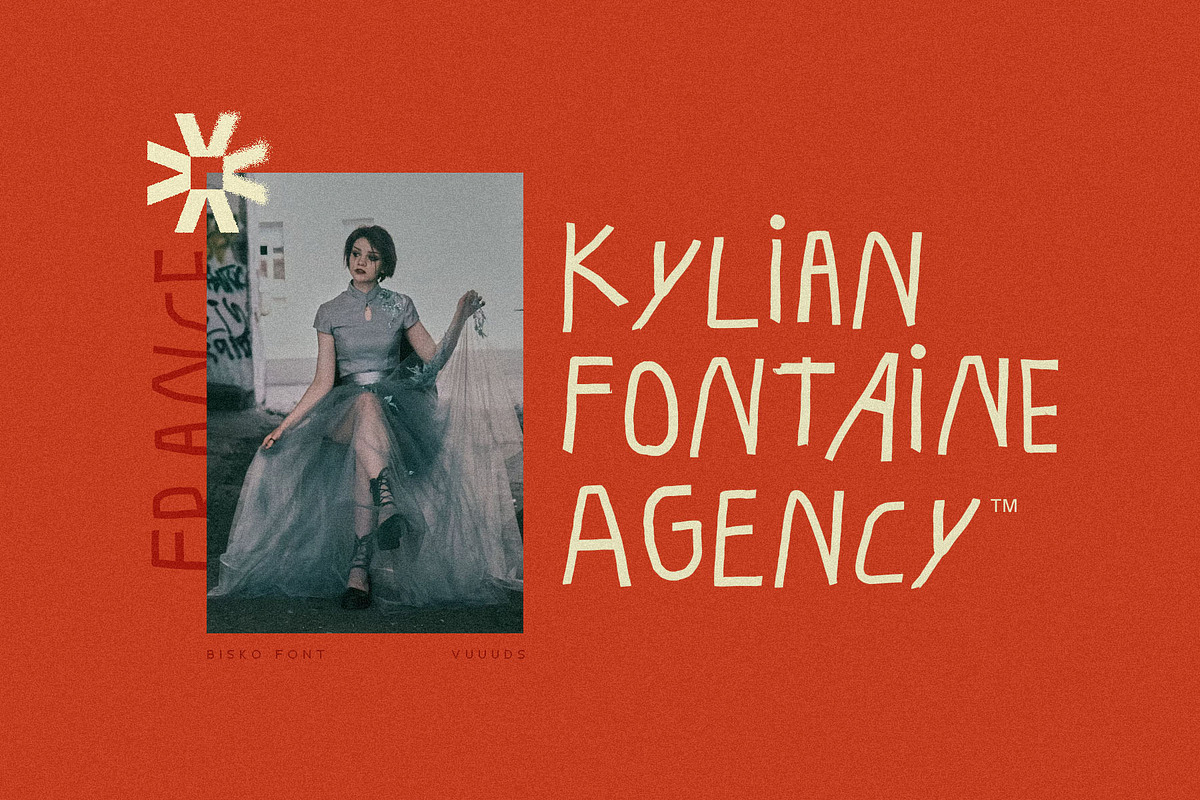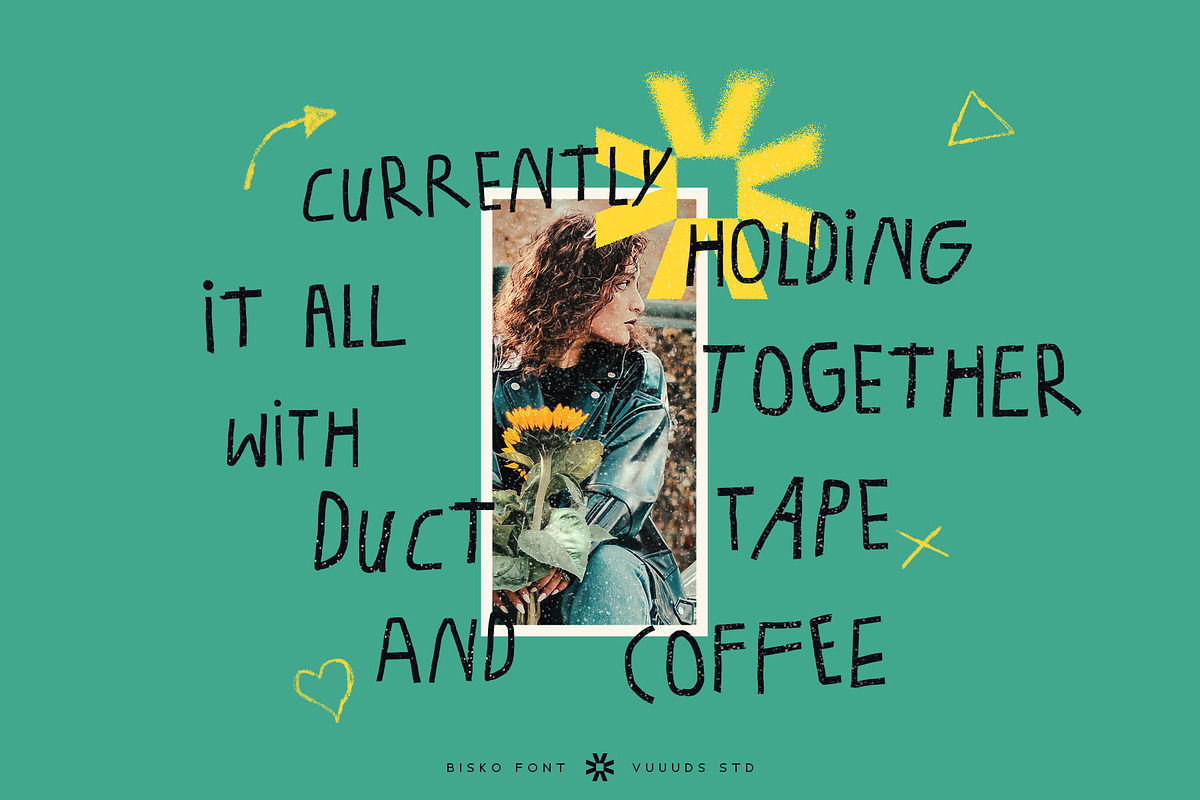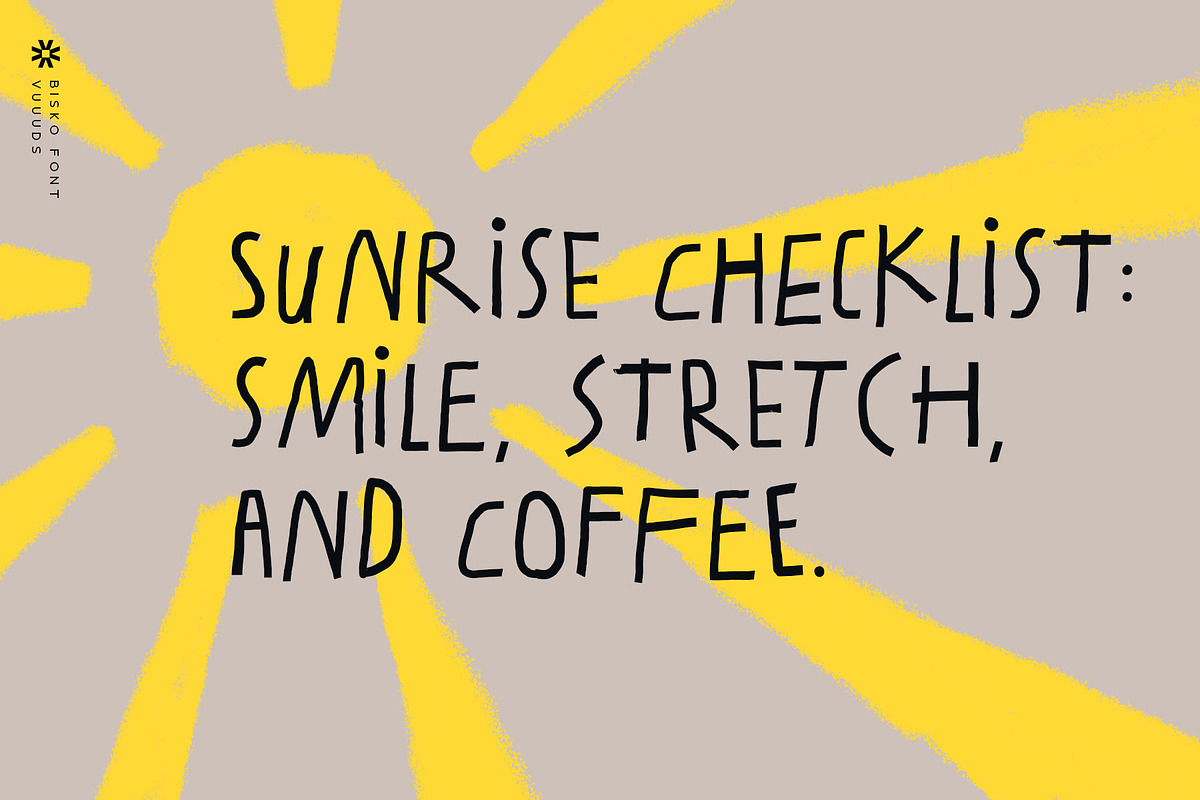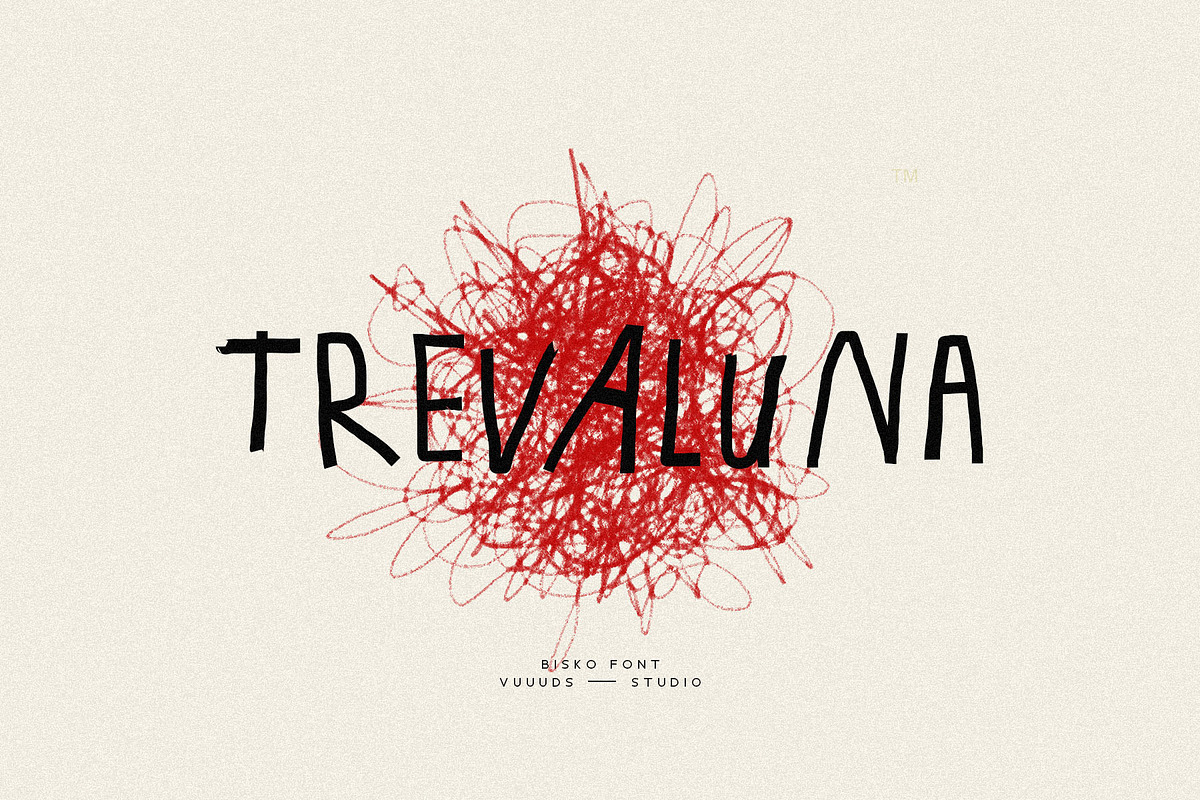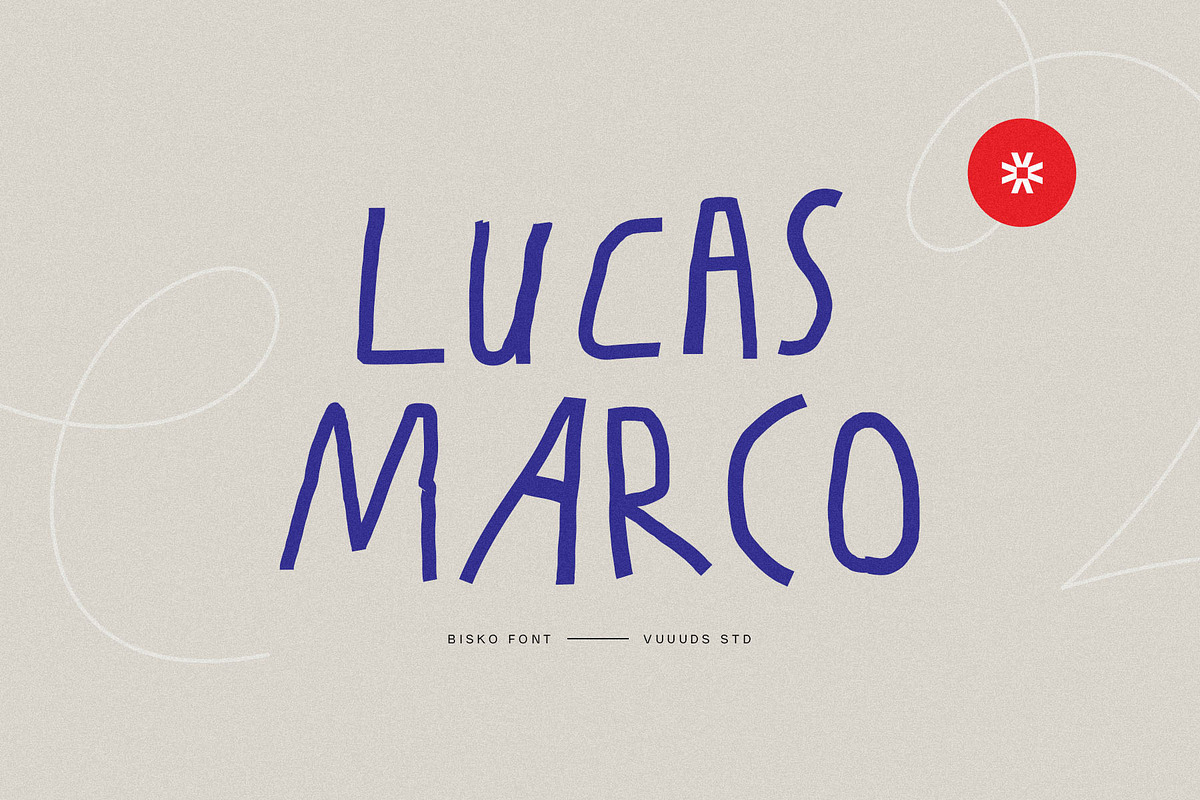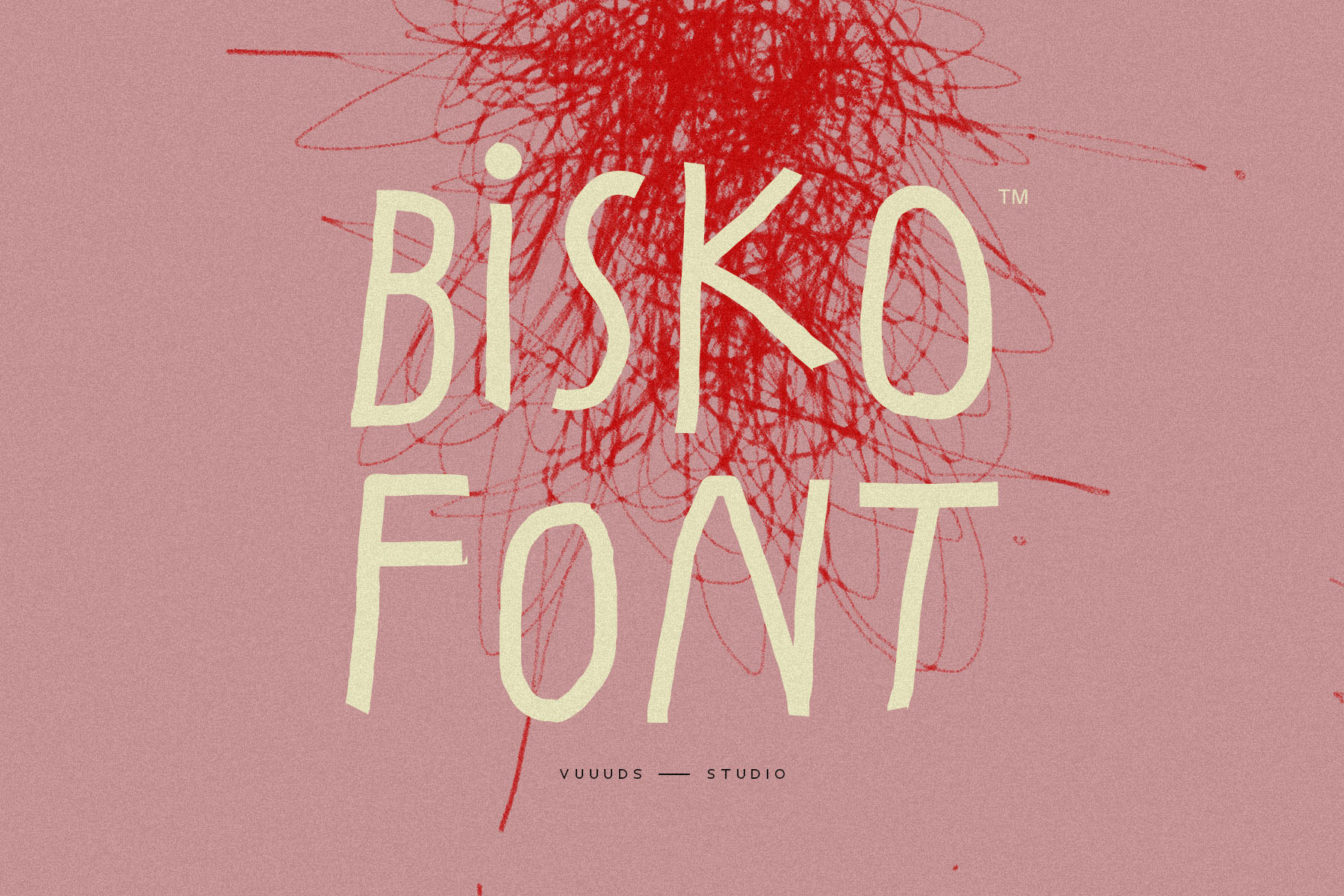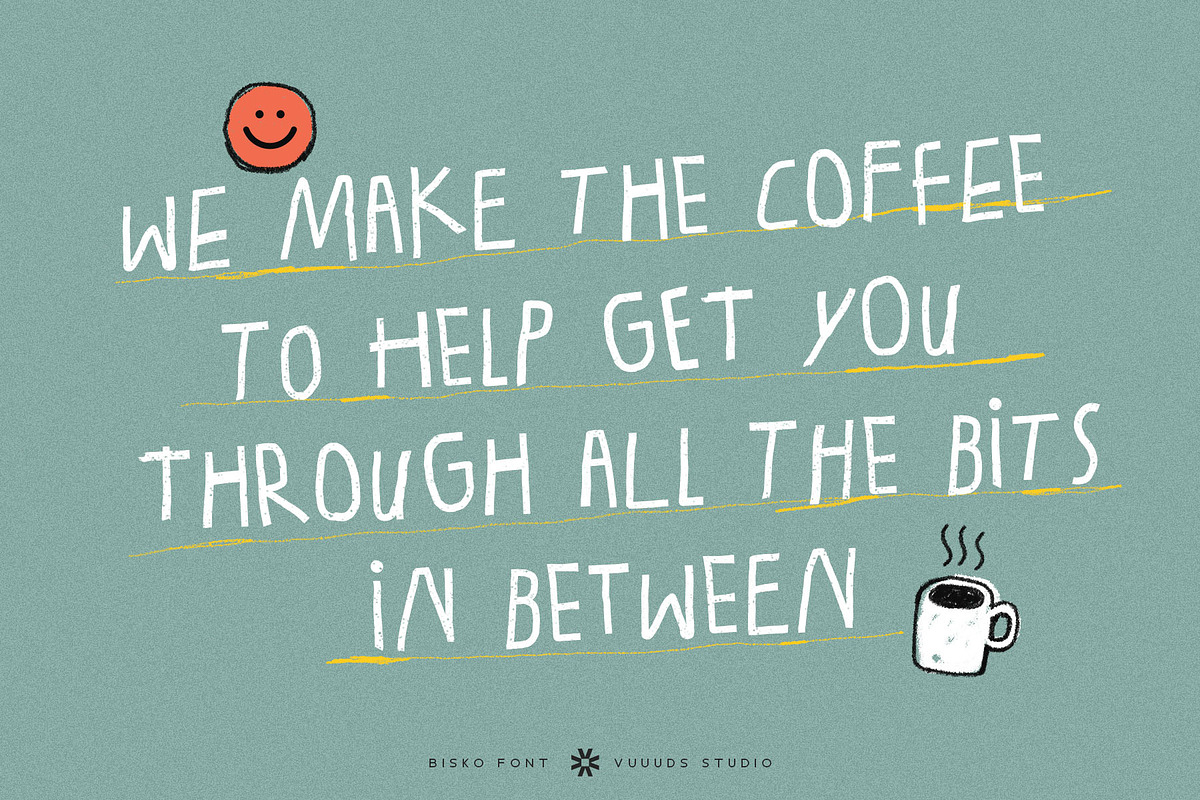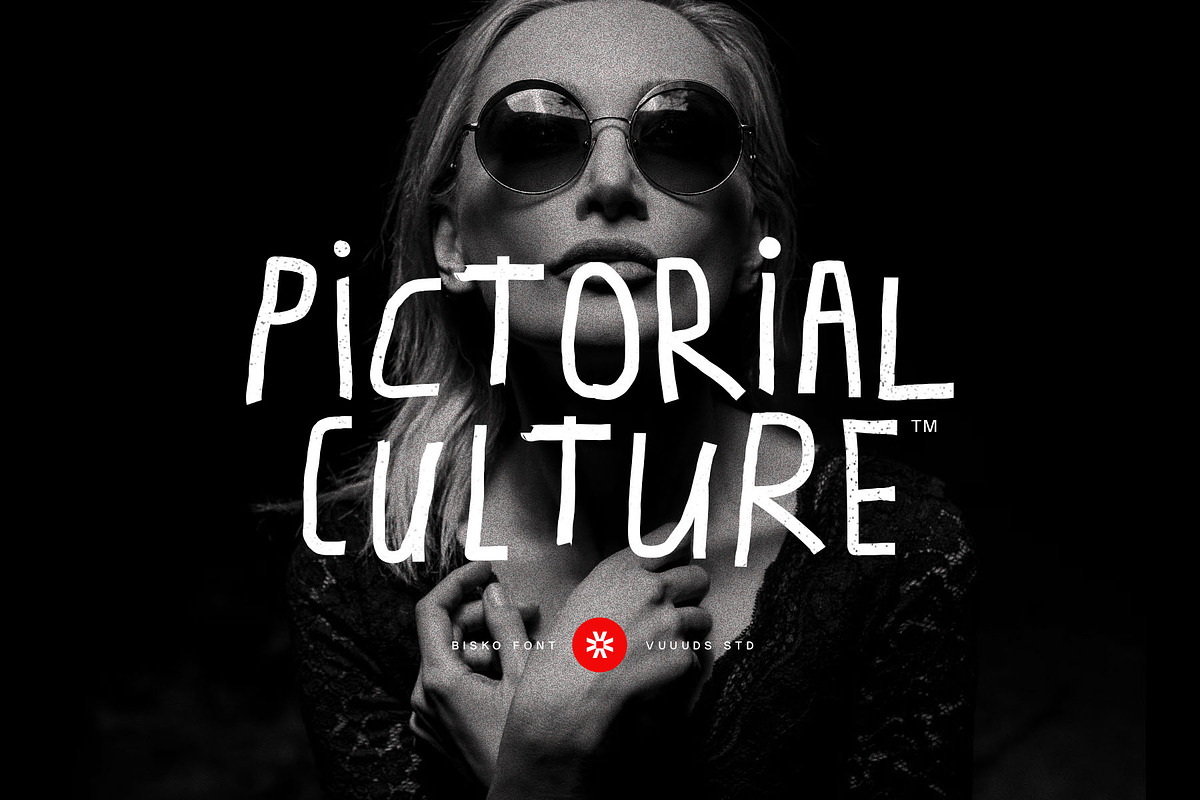
Bisko Font
Introducing Bisko Font! Bisko is casual handwritten font, every single letters have been uniquely crafted. This font including beautiful alternate glyph. You can access the alternate glyph via Font Book (Mac user) or Windows Character Map (Windows user), I've been put the link tutorial inside the zip file.
Multi languages support: ÀÁÂÃÄÅĂÆÇÈÉÊËÌÍÎÏÐÑÒÓÔÕÖØÙÚÛÜŸÝ àáâãäåăæçèéêëìíîïðñòóôõöøùúûüýÿ ȚțȘș߀£¥©®™